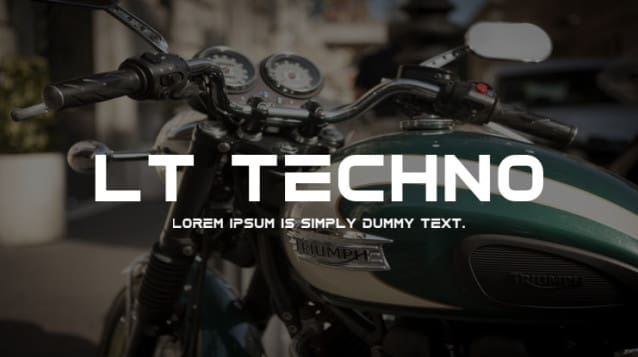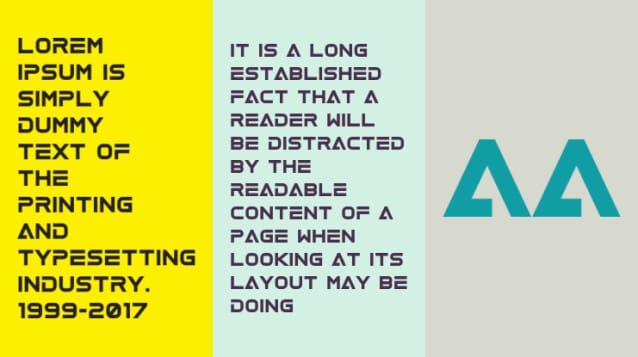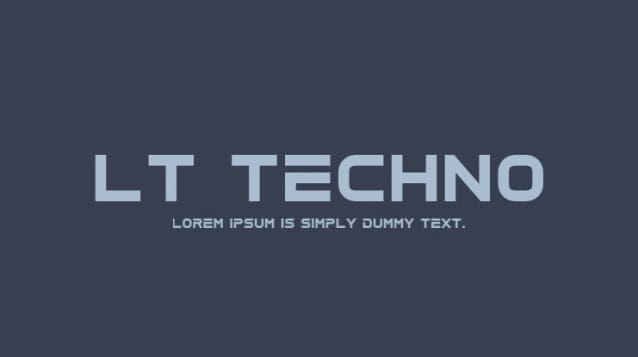
LT Techno Font
LT Techno Font, this bundle features strong, confident and powerful typefaces designed to work great with sports logos, club branding, apparel applications, labels and more.